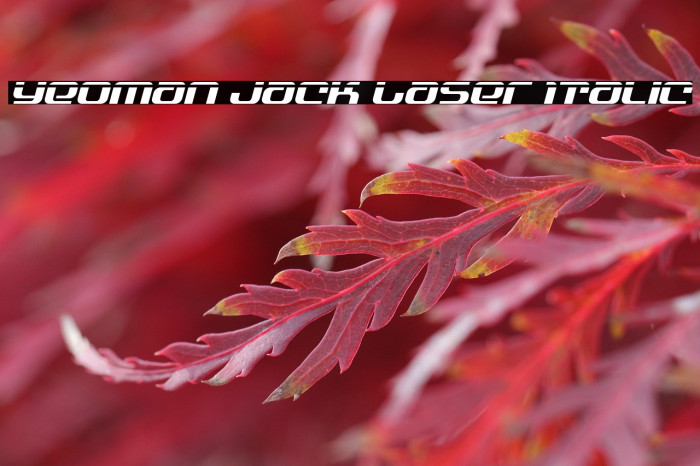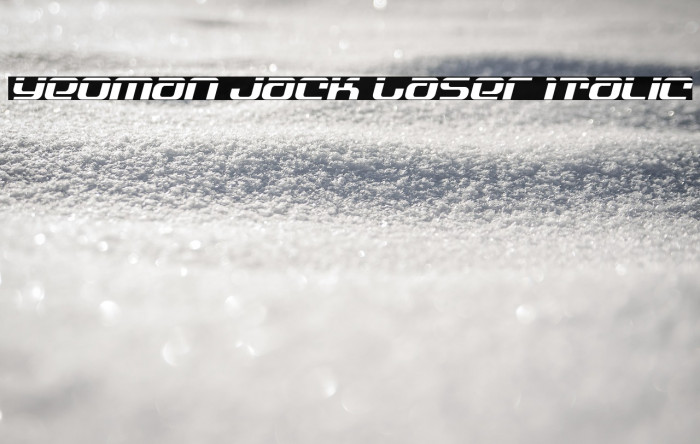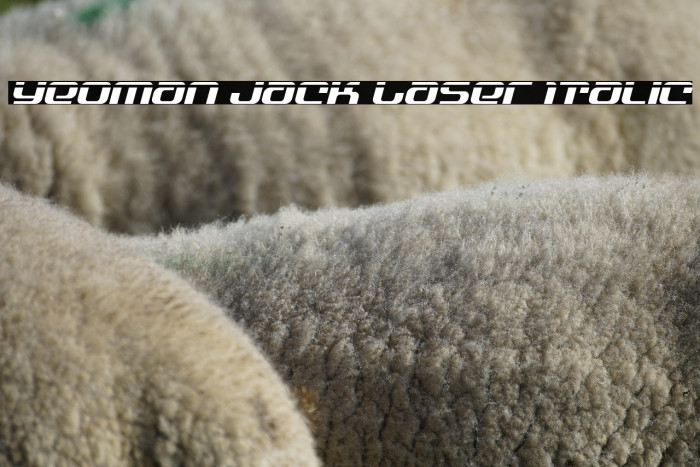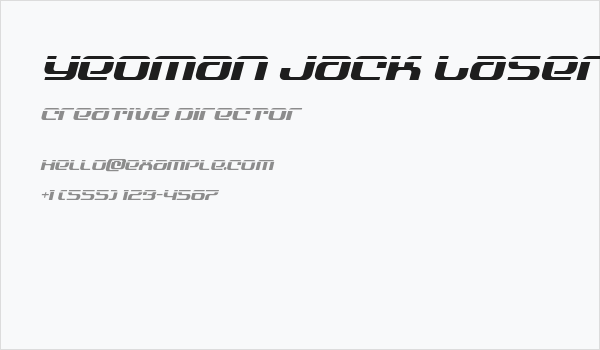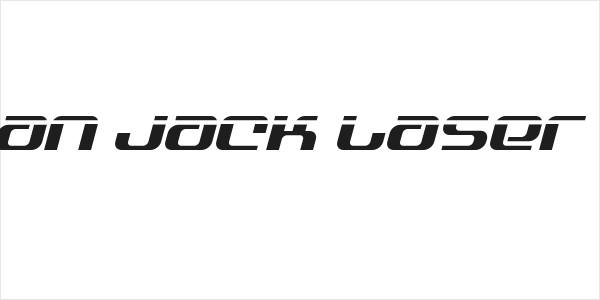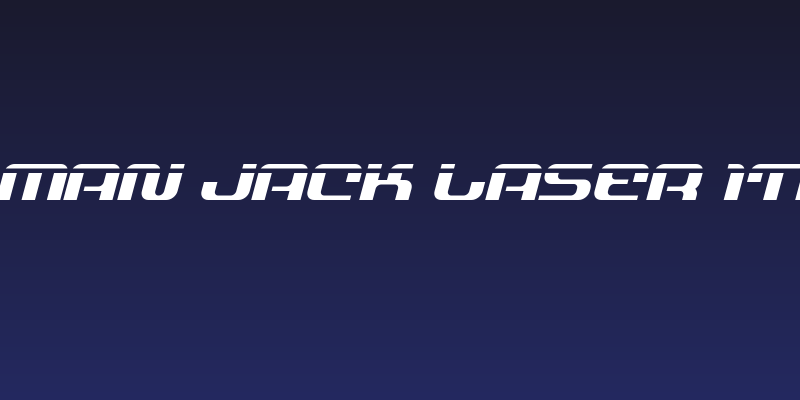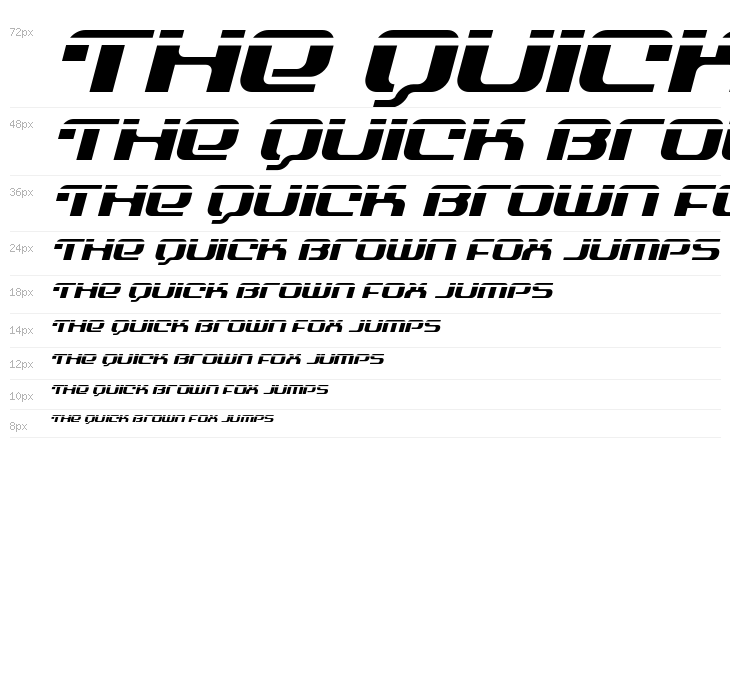
Yeoman Jack Laser Italic Font
Yeoman Jack Laser Italic Description
This font features a futuristic and dynamic design, characterized by its sharp angles and sleek, italicized form. The letters are bold and have a distinct geometric style, with clean lines and a sense of movement. The uppercase and lowercase letters maintain a consistent style, enhancing readability while adding a modern edge. The numbers and special characters are designed to match the overall aesthetic, making the font versatile for various applications. The italic slant adds a sense of speed and energy, making it ideal for projects that require a contemporary and bold statement.
| Proposed Projects | Ideal for technology branding, sports team logos, video game titles, and sci-fi themed posters. |